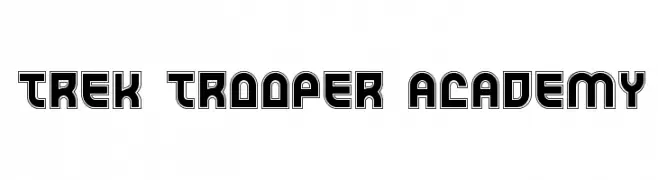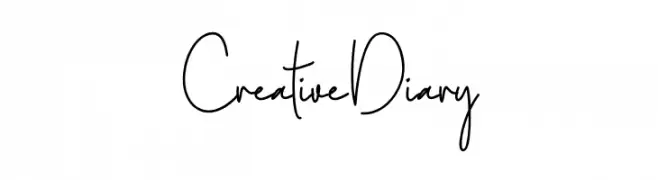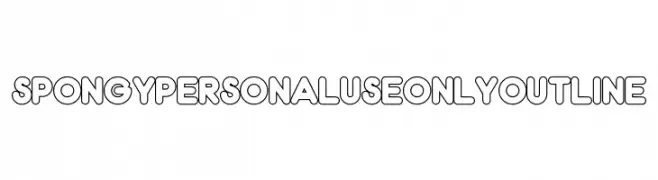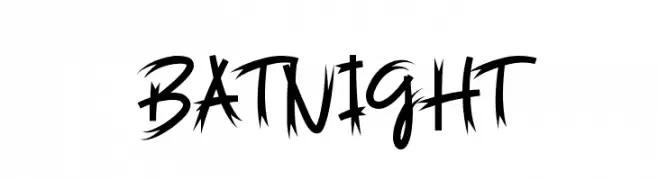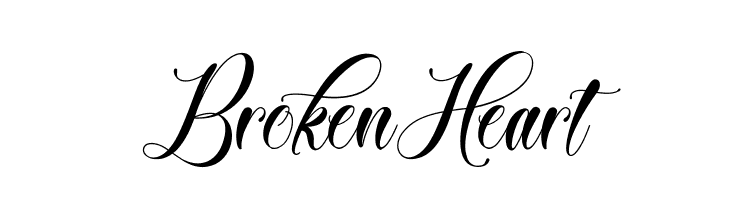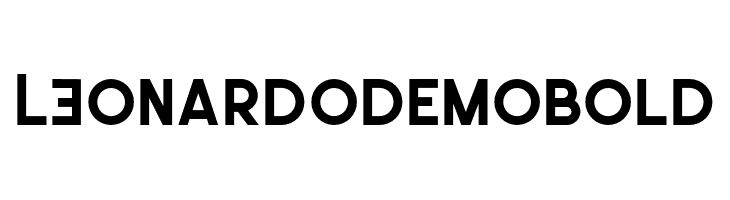
A bold, geometric font with angular lines and a futuristic style.
A playful, hand-drawn font with bold, exaggerated curves and a whimsical style.
A clean, modern sans-serif font with geometric letterforms and consistent stroke width.
A bold, futuristic font with geometric outlines and a modern aesthetic.
An ornate, decorative font with intricate designs in each uppercase letter.
A whimsical handwritten script with tall, narrow letters and a casual style.
A playful, bold outline font with rounded edges and consistent stroke width.
A dynamic, edgy font with sharp, jagged edges and a bold, hand-drawn style.
A bold, 3D italic font with outlined characters and a futuristic style.